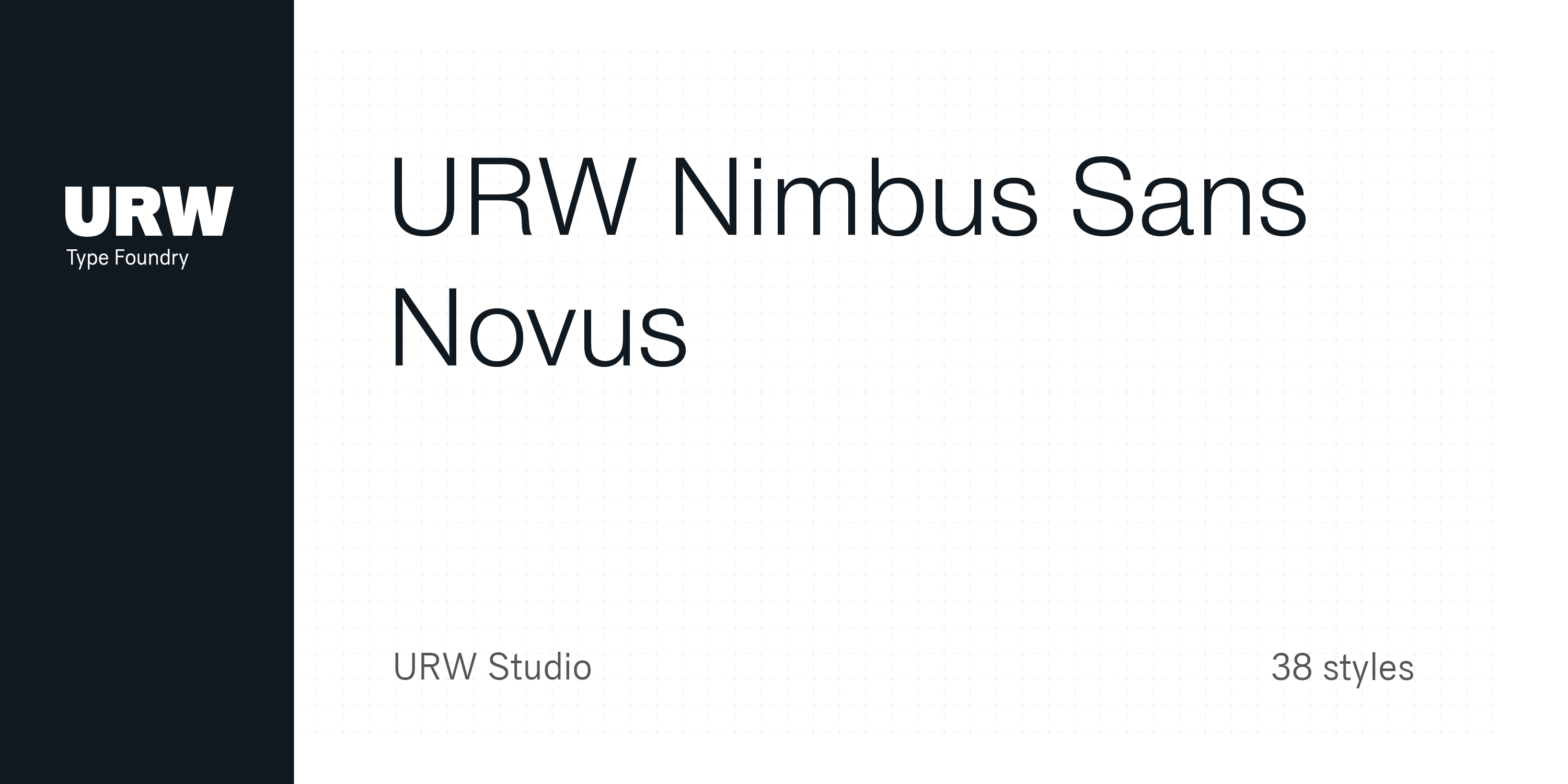
Please note, you must purchase this font for commercial use. You can download Nimbus Sans Novus Font Free Download for testing purposes and explore its clean, modern design. Nimbus Sans Novus Font is perfect for contemporary branding, editorial content, logos, and any design that requires a professional and legible sans-serif typeface.
With its geometric letterforms and balanced structure, Nimbus Sans Novus Font brings a minimalist, modern feel to your designs. It's ideal for creating clear, readable logos, headings, websites, and marketing materials, offering both functionality and style.
Nimbus Sans Novus Font Free Download supports multilingual characters, making it versatile for global projects. Its legible design ensures readability across both print and digital formats, making it a great choice for various creative applications.